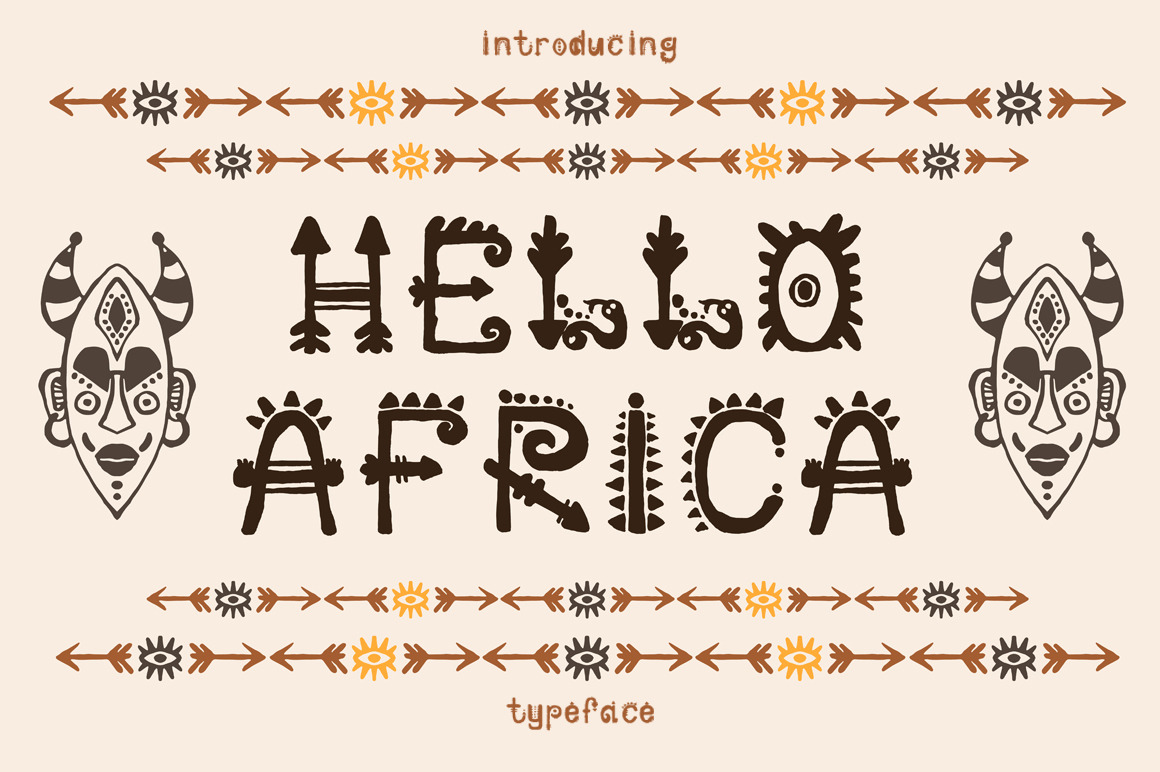
African Font + bonus
Hand drawn Tribal African font typeface and ethnic mask . Letters for your design, wallaper, textile, print. African culture. Fabric afro ornament.